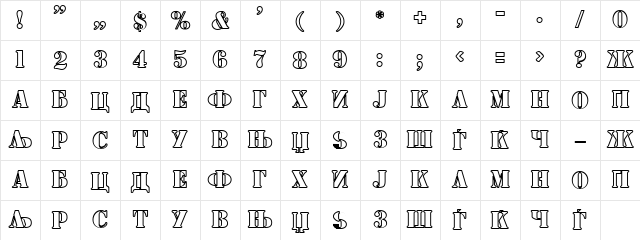
X_Empty Black
Design Context for X_Empty
X_Empty is a composed and adaptable typeface that performs quietly and consistently across a wide range of design contexts.